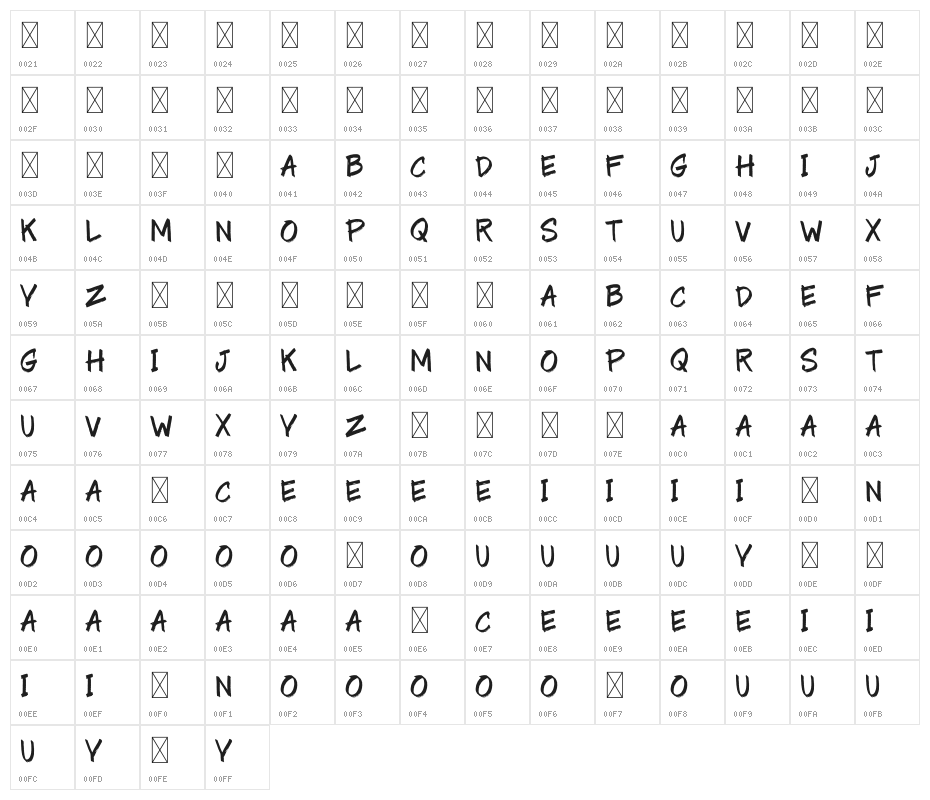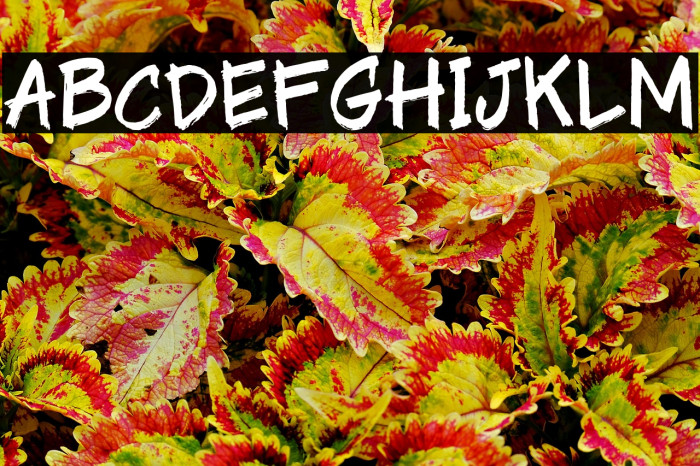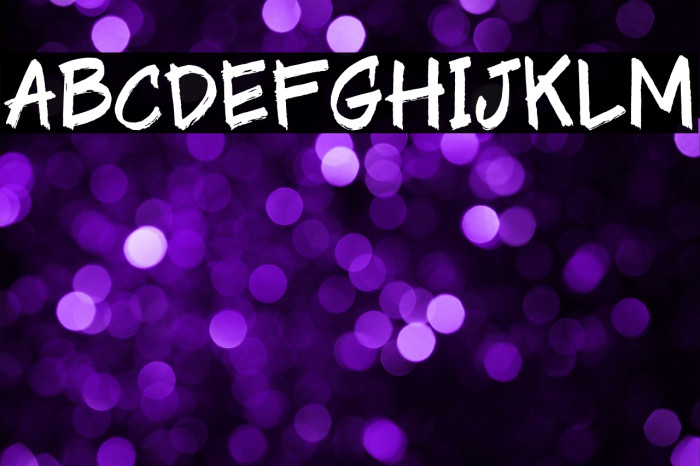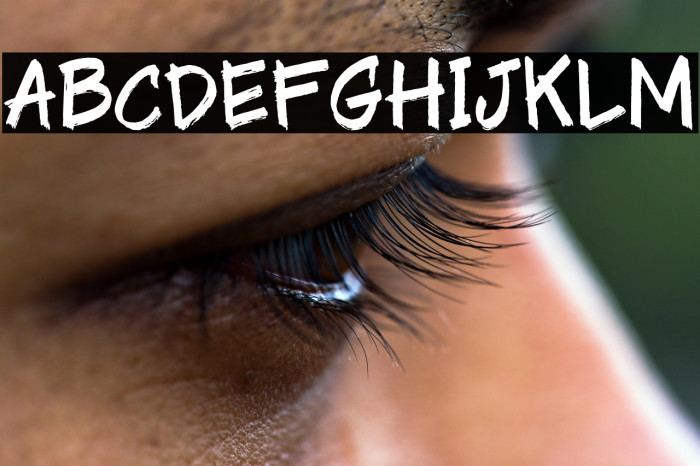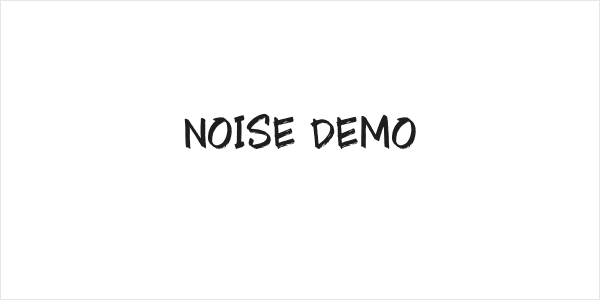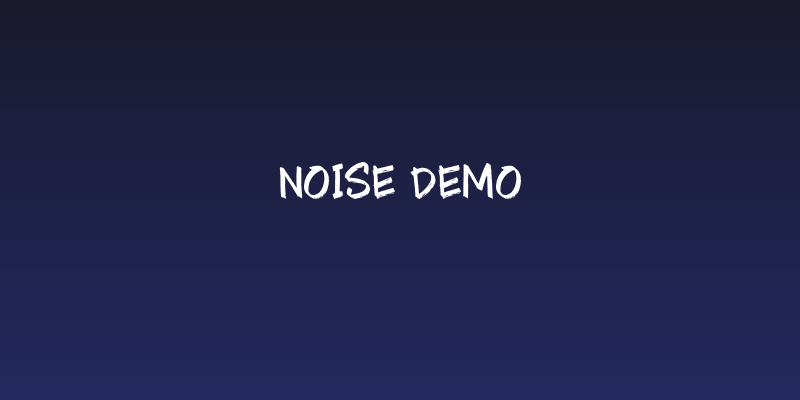
Noise Demo Font
Noise Demo Description
This font features a bold and energetic style, characterized by its hand-drawn appearance and dynamic strokes. The letters exhibit a slightly irregular form, giving them a lively and informal feel. The uppercase characters are prominent and impactful, making them suitable for attention-grabbing headlines. The font's playful nature is enhanced by its brush-like texture, which adds a sense of movement and spontaneity. This style is ideal for projects that require a casual and creative touch, such as posters, flyers, and social media graphics.